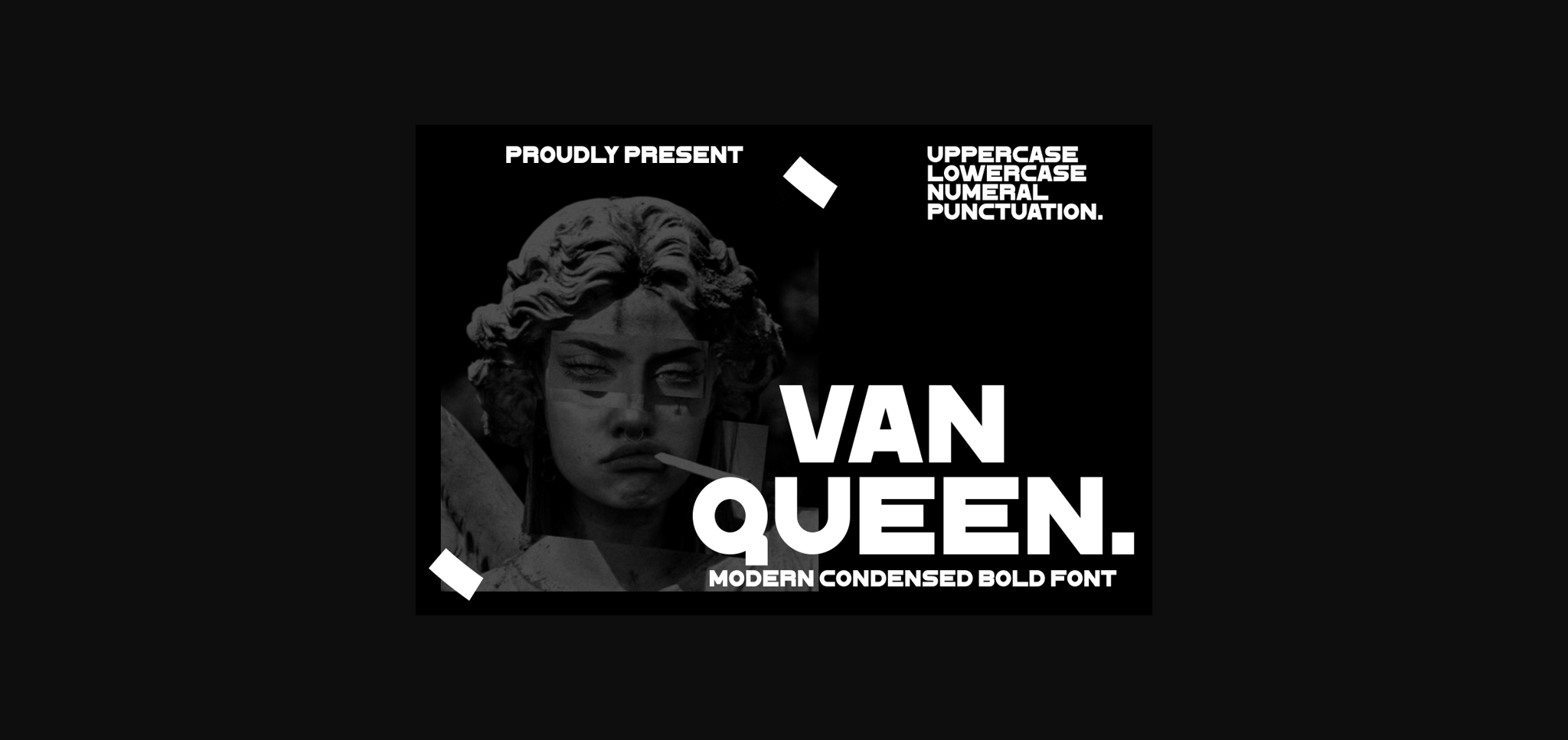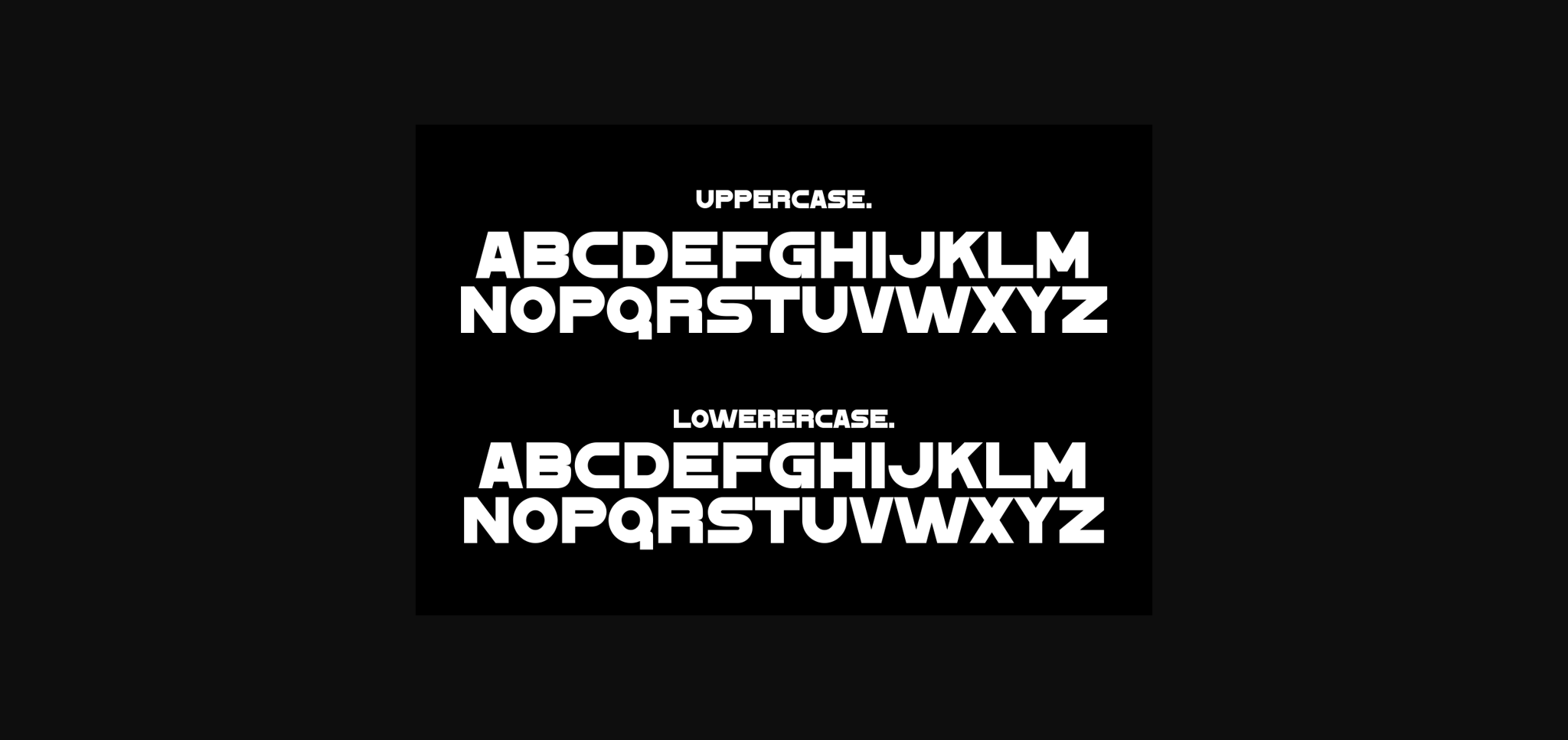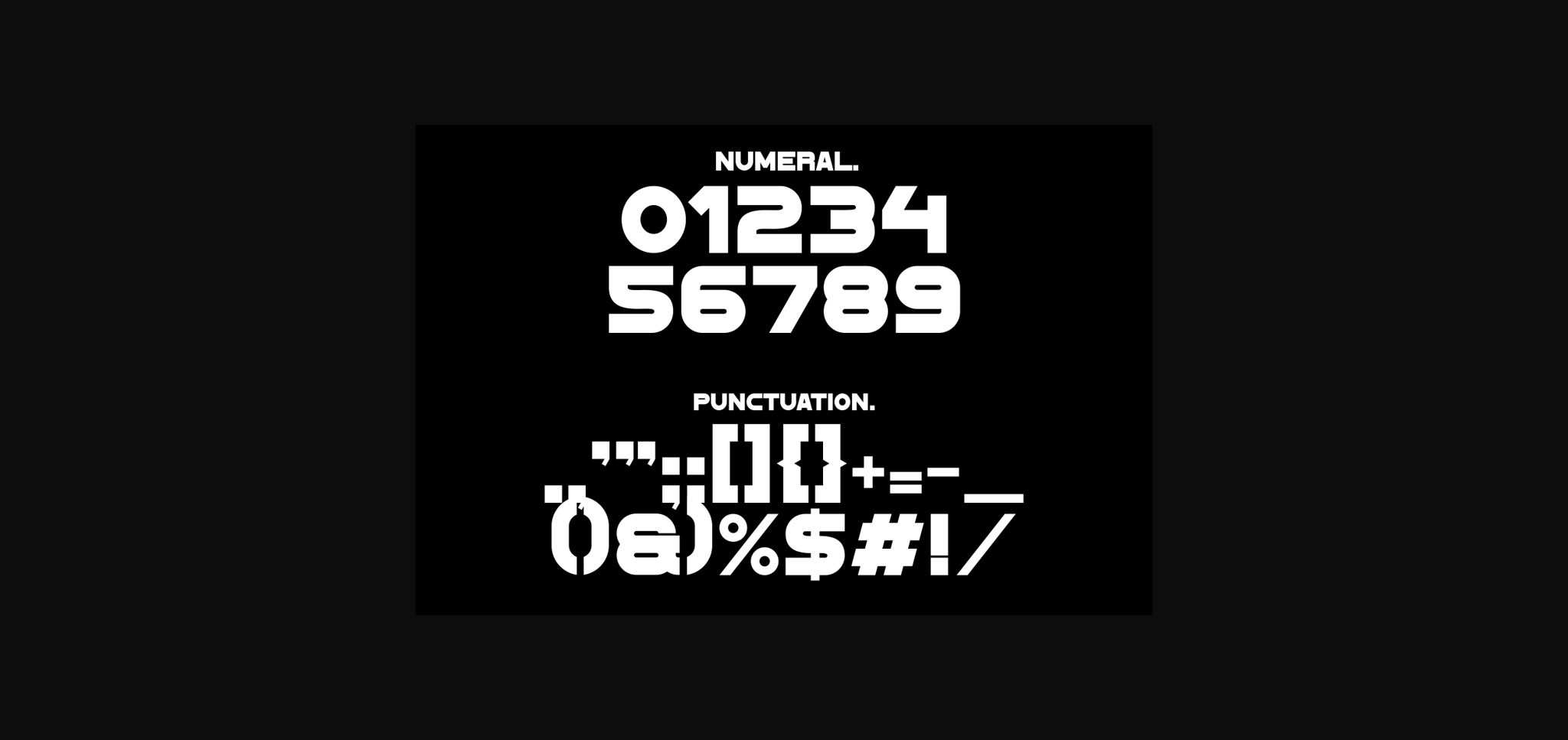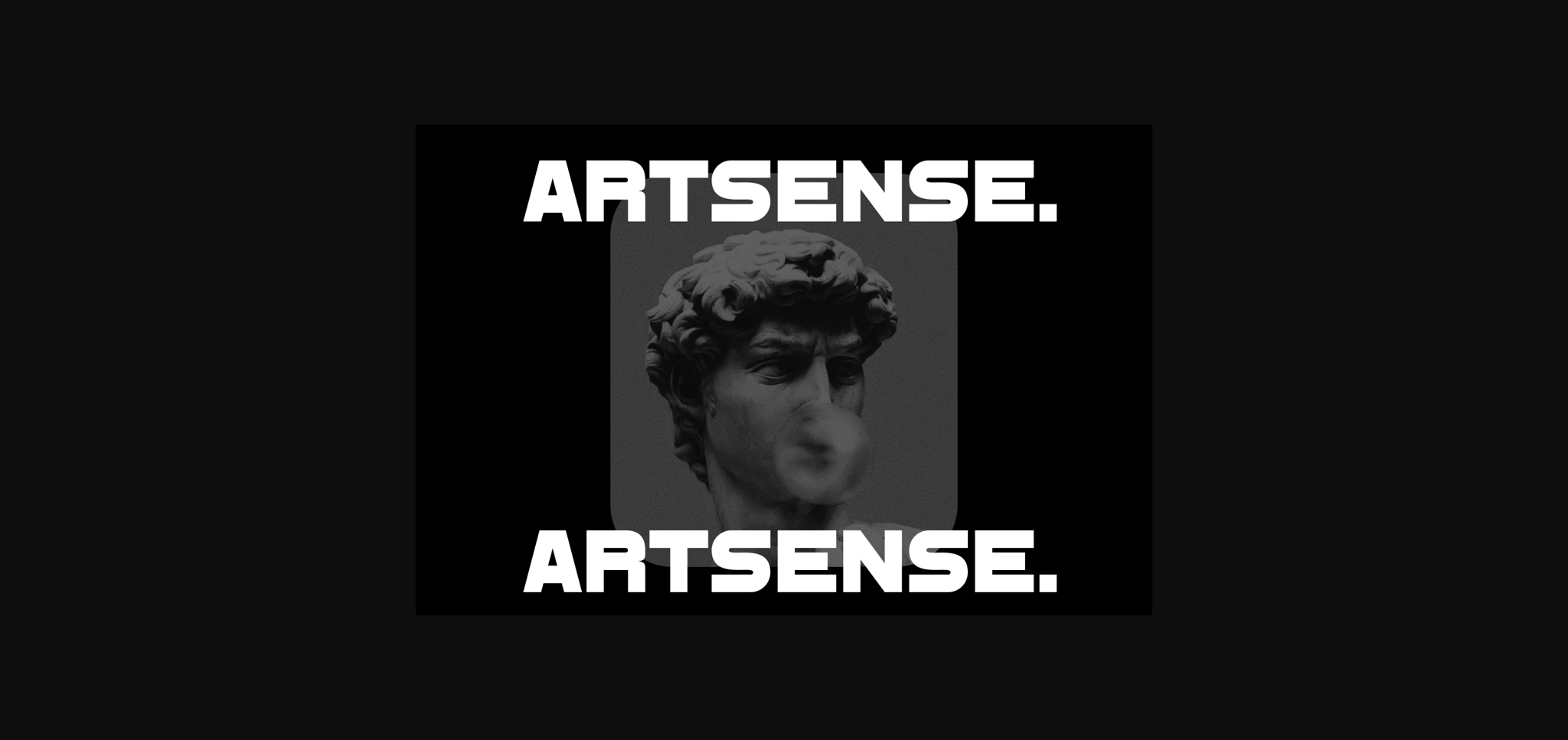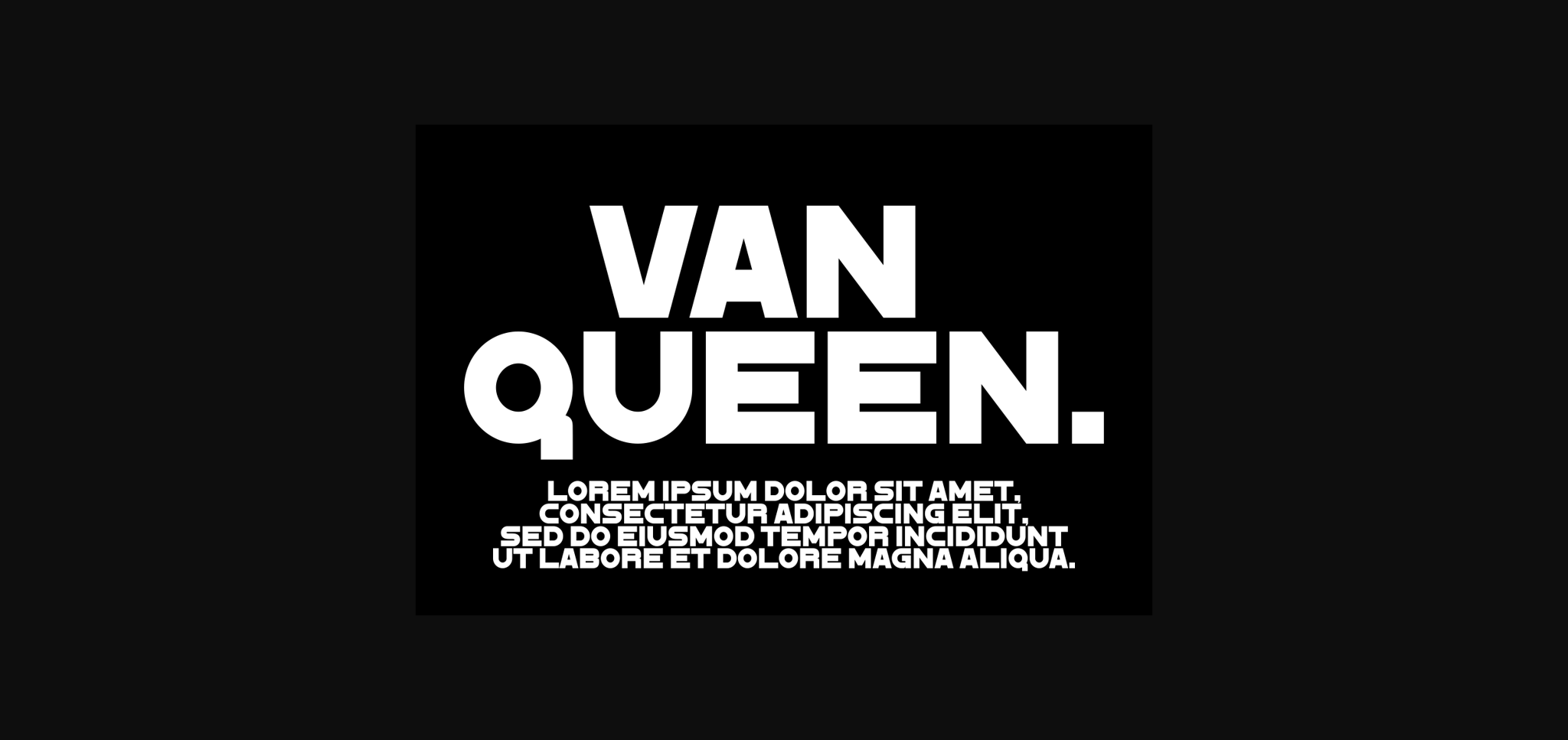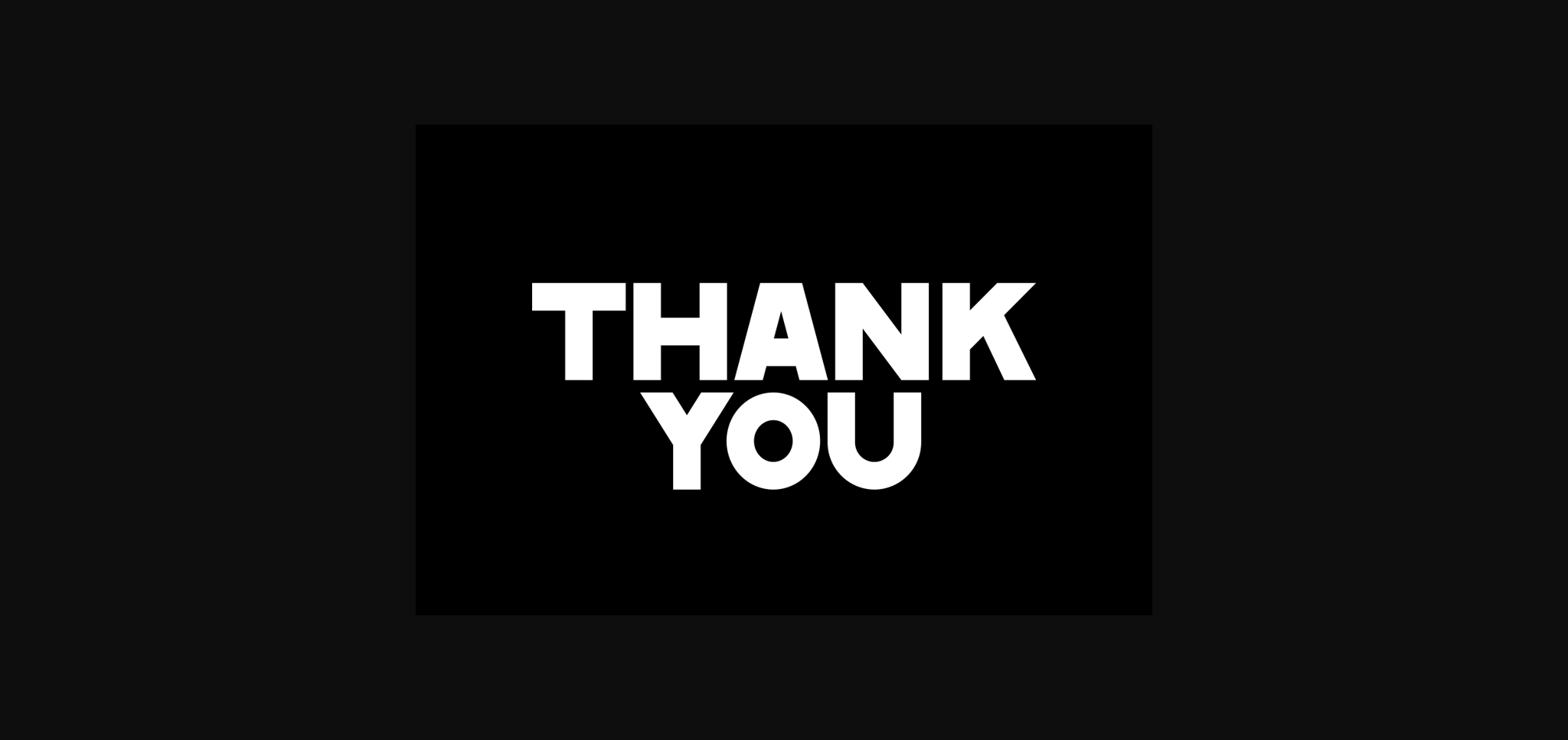
Van Queen Font
About Van Queen Font
**VAN QUEEN** is a super thick typeface with more traditional letter shapes, making it perfect for creating (or recreating) the concise look of film poster production credits.